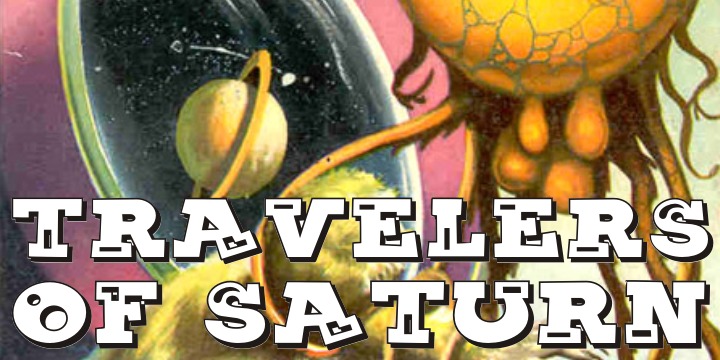
Picuxuxo
by Intellecta Design
The Picuxuxo Font Family was designed by Paulo W and published by Intellecta Design. Picuxuxo contains 3 styles and family package options. More about this family
Picuxuxo is a slab fun font, good to kid's story tale books.
Designers: Paulo W
Foundry: Intellecta Design
Original Foundry: Intellecta Design
Intellecta Design is a Brazilian typefoundry interested in typographical research and revivals of all forms of ancient typefaces and handwriting styles. It searches historical churches, museums, antiquaries and similar institutions to develop fonts from old books and documents, and has a large collection of rare catalogues and books from XVI to XIX century to help in your studies to digitize lost fonts and non-usual handwriting script models. This kind of research is not common in Brazil. In addition, its design team also works to create new and modern typefaces for all applications. Intellecta Design claims to be the creator and owner of the largest typeface library in Latin America.